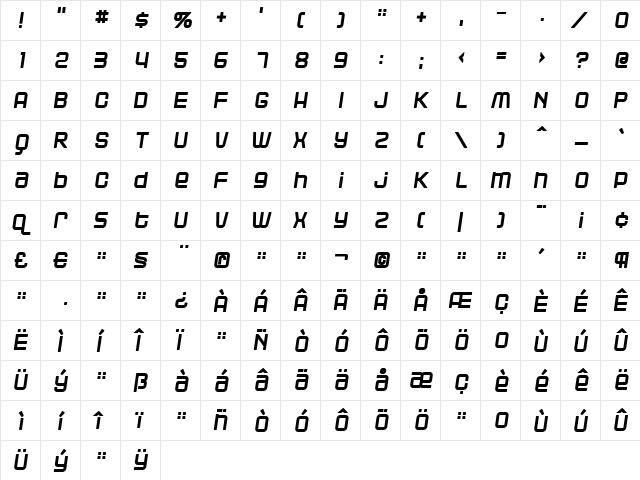
Blackjack Rollin
Design Context for Blackjack Typeface
Blackjack offers clean, dependable letterforms without strong stylistic allegiance, making it a practical choice for designers who need flexibility.